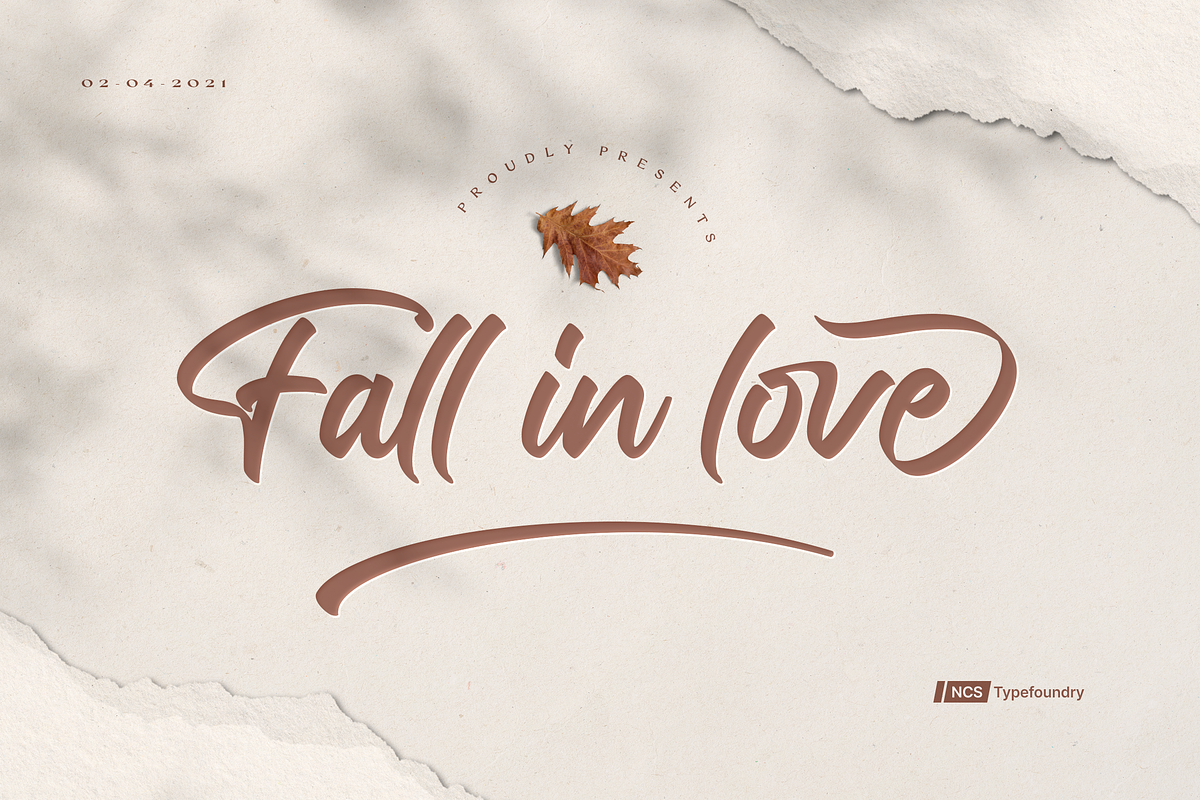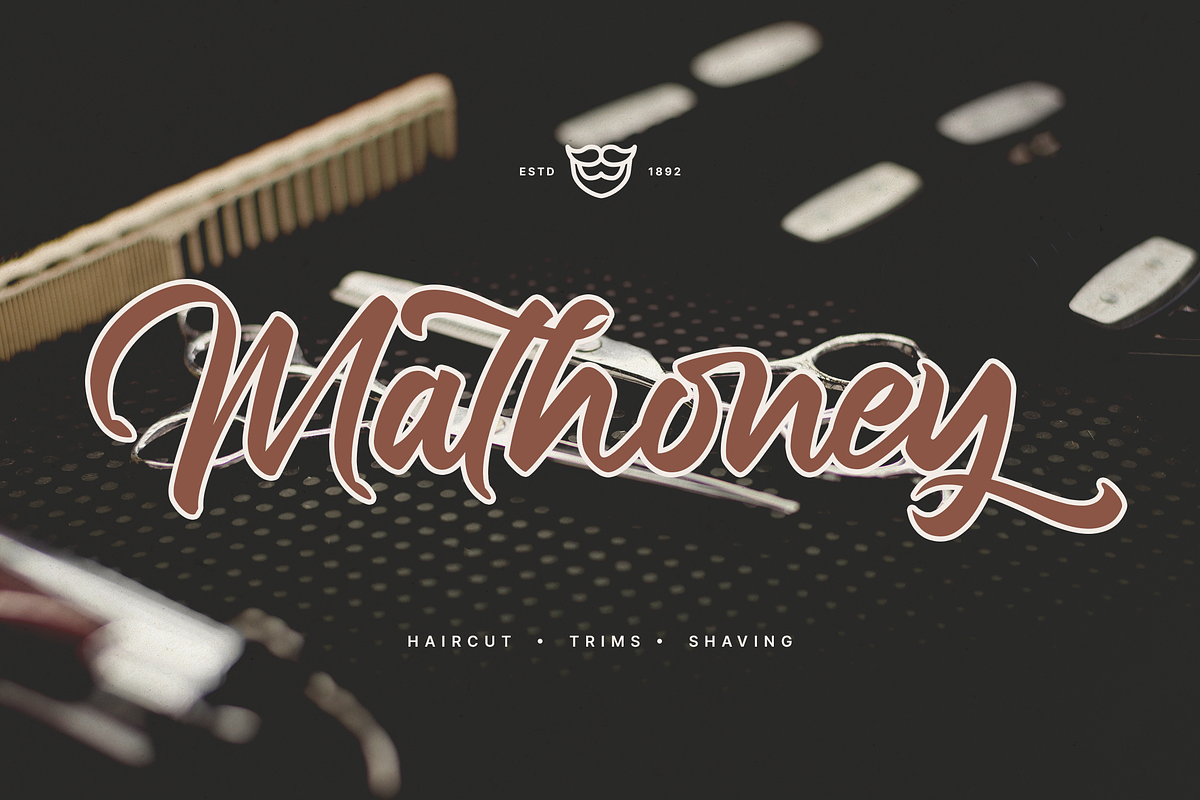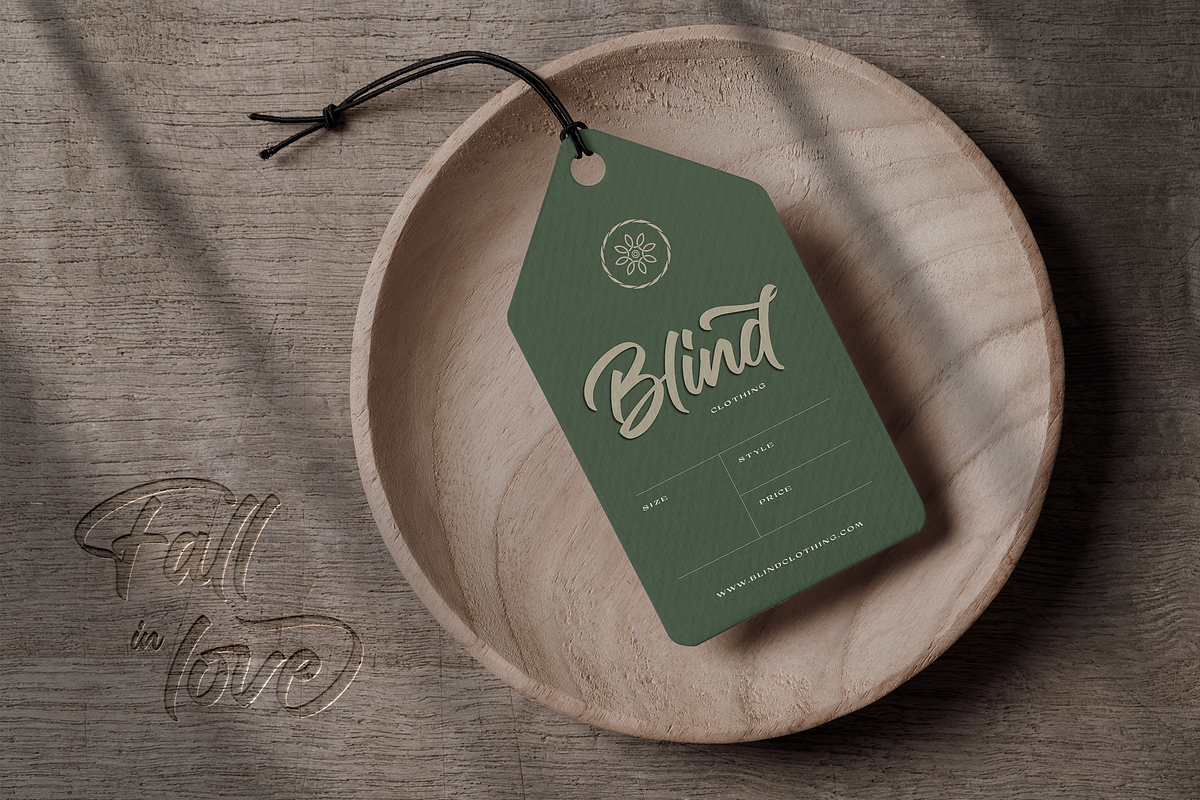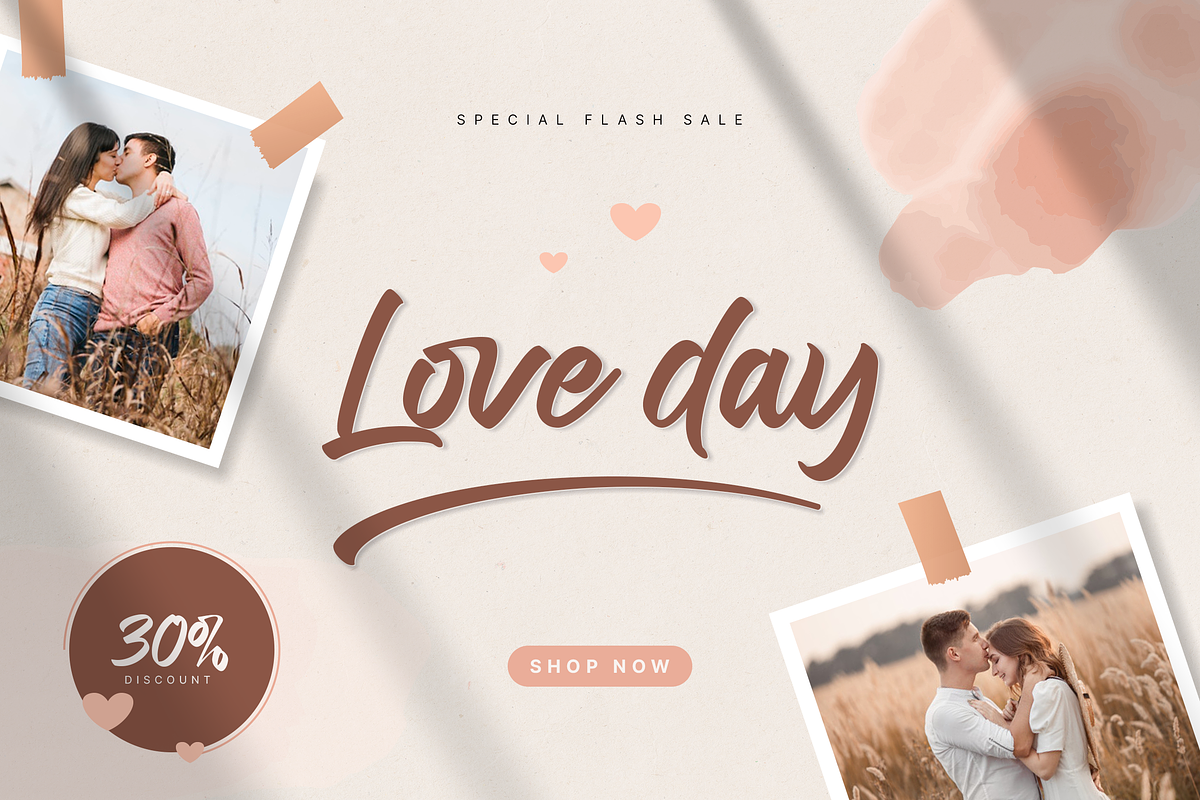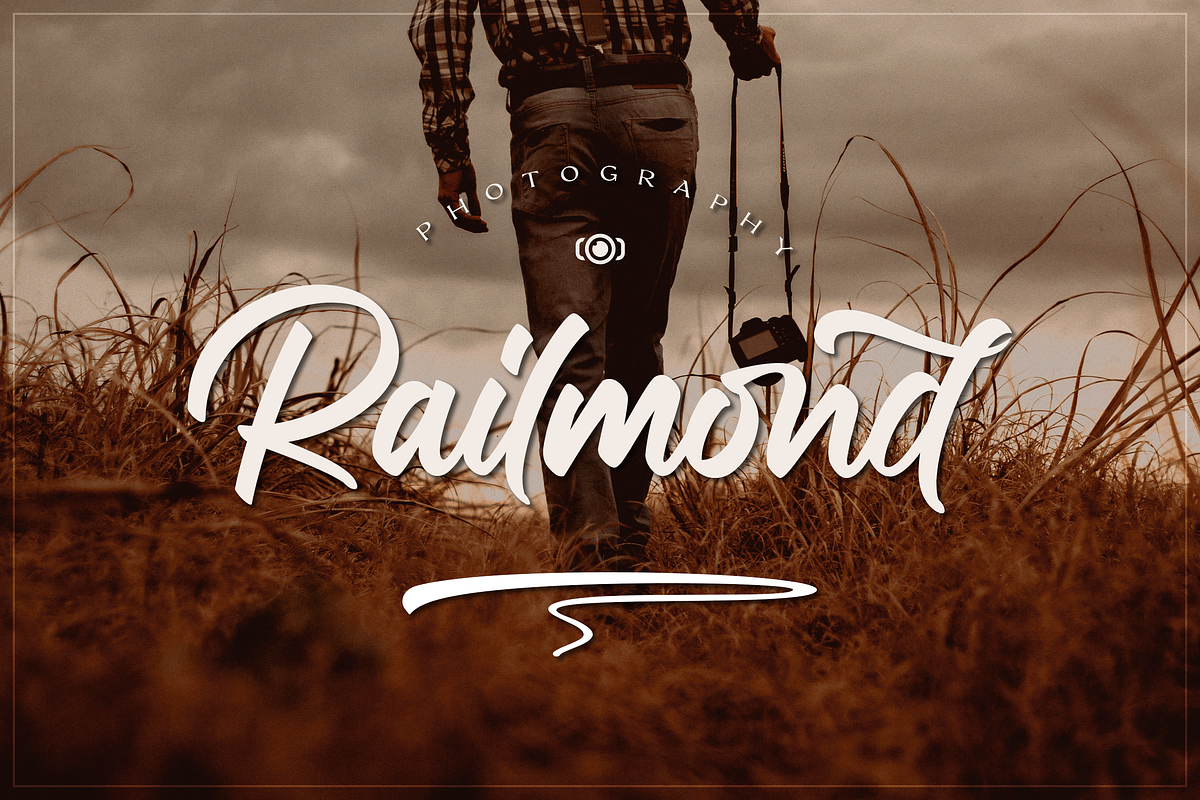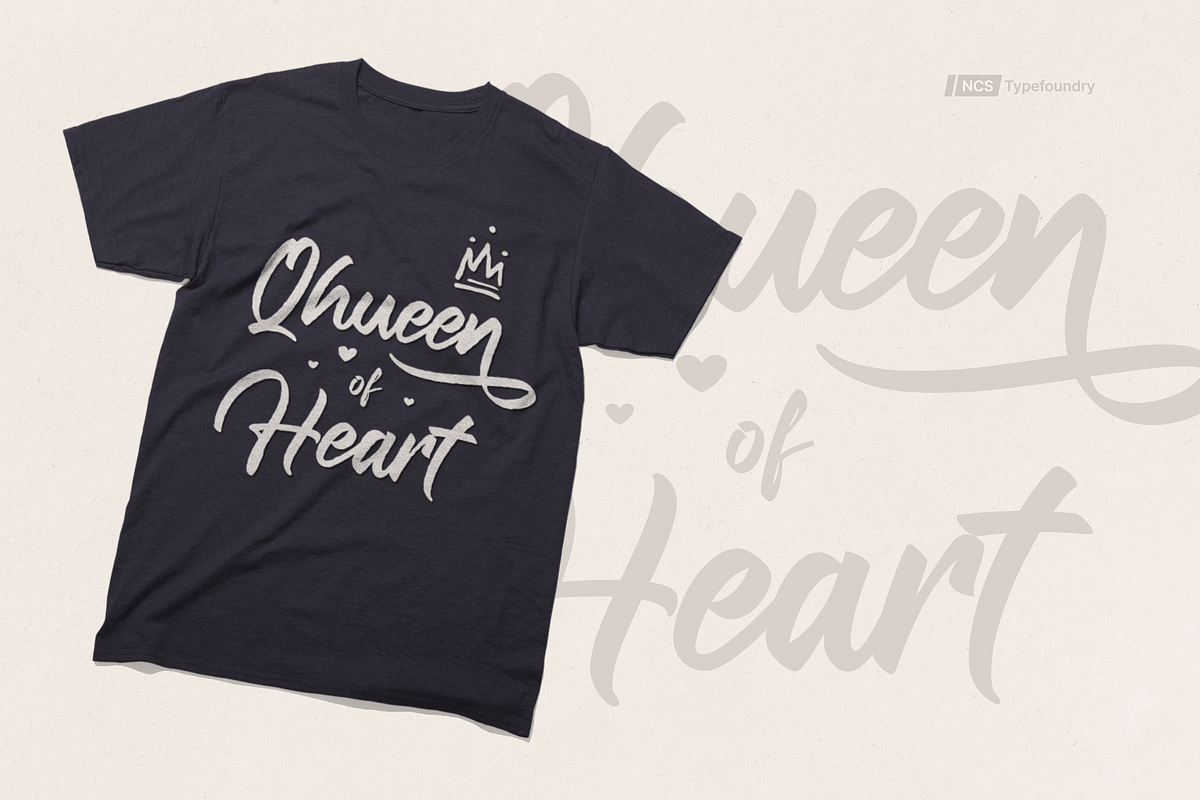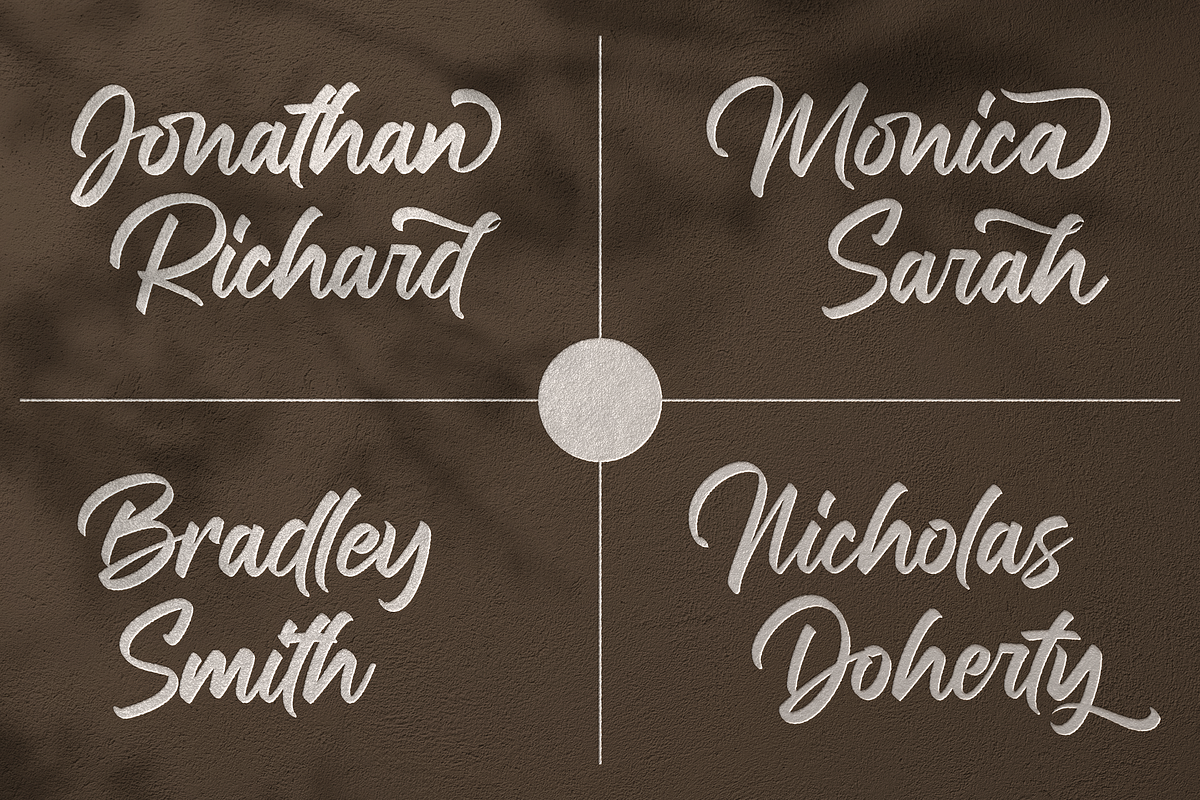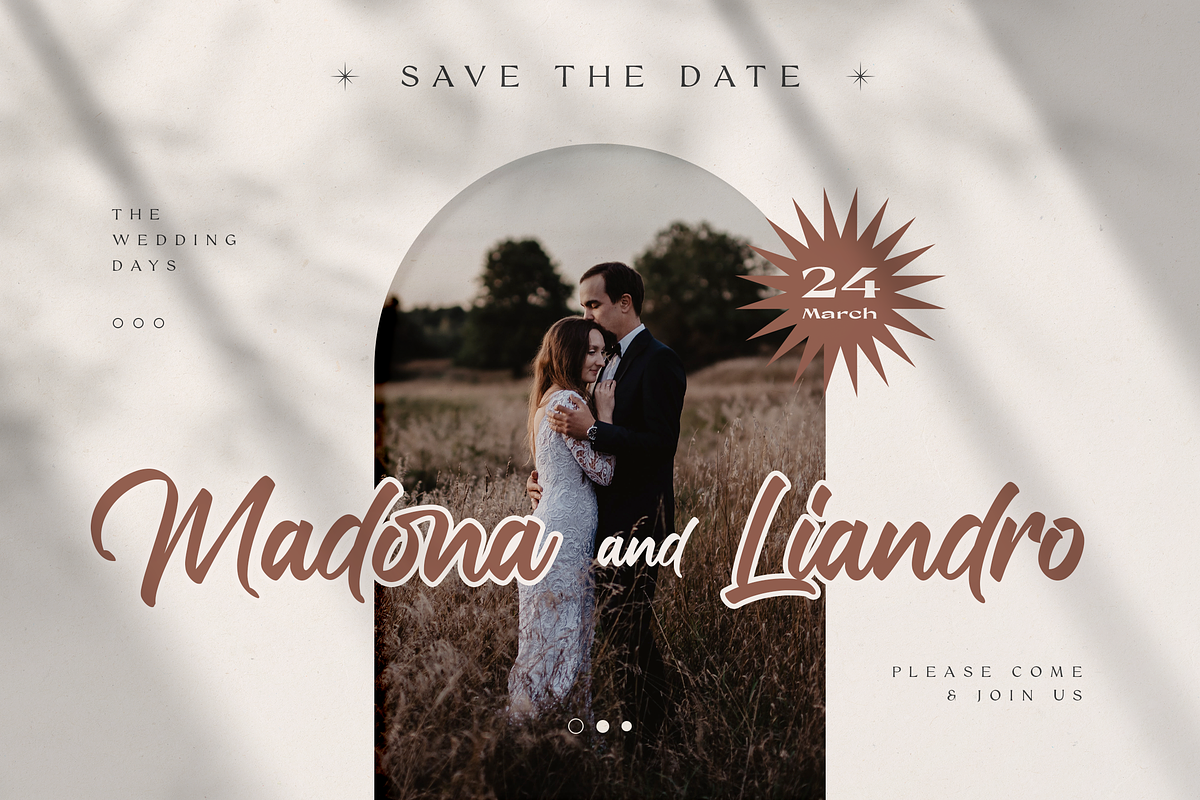
Fall in love
Bold and stylish calligraphy script font with modern touch give authentic, charismatic & confident font choice for a range of design projects. Such as logotype, t shirt design, product packaging, stylish signature, business branding and promotional campagin. Add it to your most creative ideas and notice how it makes them come alive! Fall in love with its incredibly distinct and timeless style and use it to create spectacular designs!